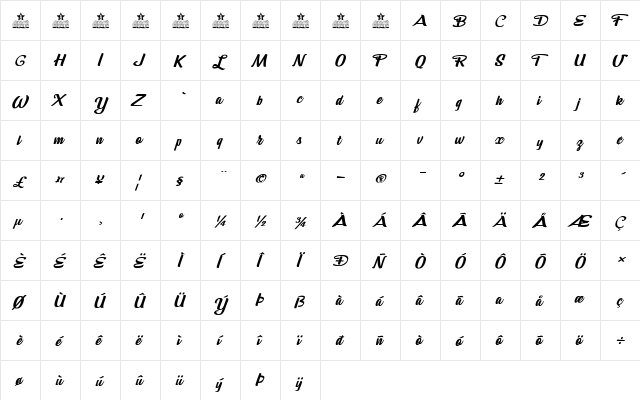
Death Before Chocolate Personal Regular
Design Context for Death Before Chocolate Personal Typeface
Death Before Chocolate Personal leans into the macabre with letterforms designed to disturb and intrigue in equal measure.
Perfect for anything that needs to unsettle — game titles, horror branding, and macabre invitations.
Font Pairing: Pair with a clean neutral sans-serif for body copy to let Death Before Chocolate Personal's character lead without overwhelming the composition.
Pro Tip: Use Death Before Chocolate Personal at larger display sizes for maximum impact. Consider generous tracking to let the disturbing character of each letterform breathe.